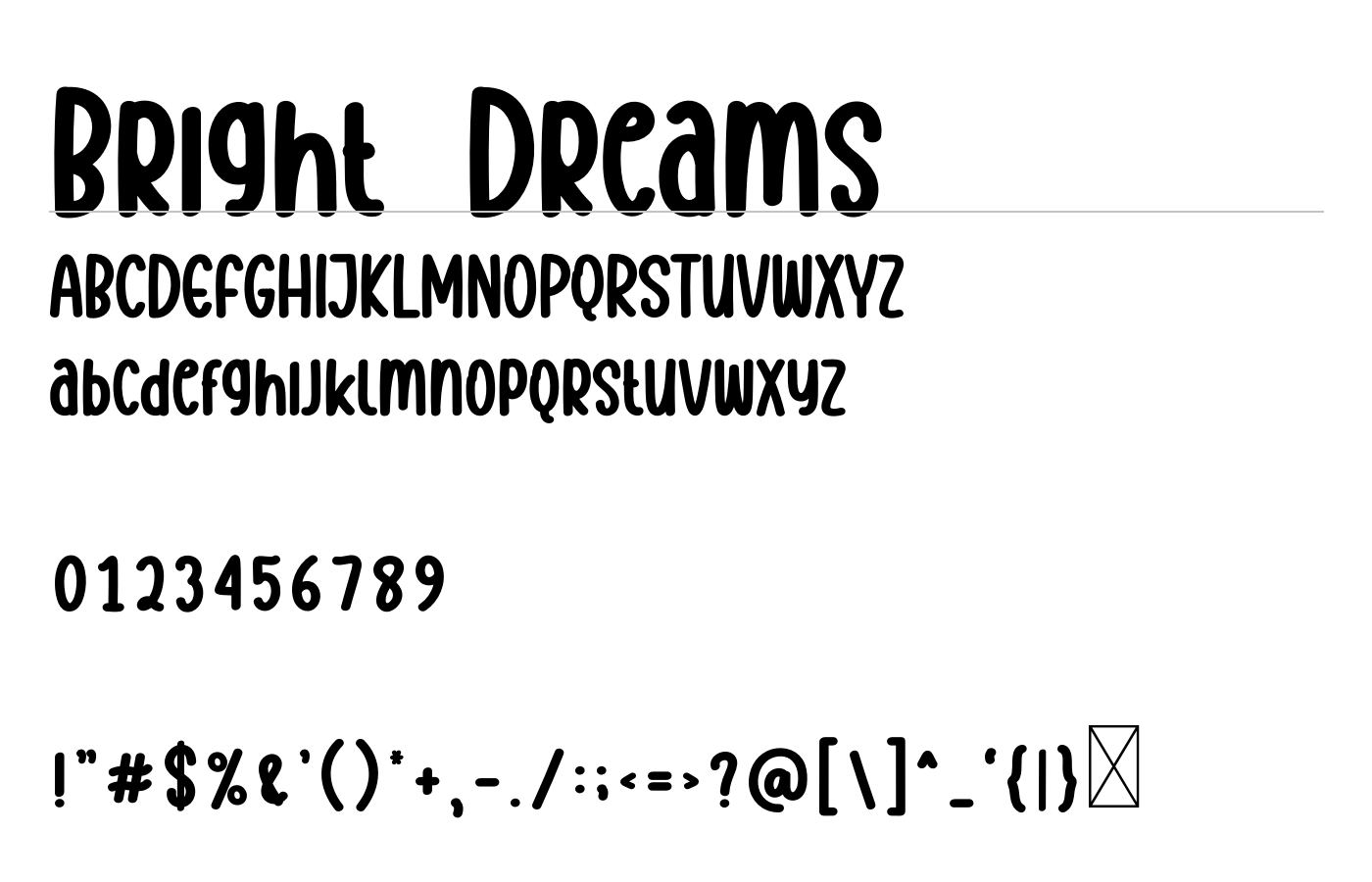
Bright Dreams Font is a playful and friendly sans serif typeface with a casual, hand-drawn feel. Its rounded, slightly irregular letterforms create an approachable and fun vibe, making it ideal for children's books, informal branding, and creative projects that want to convey warmth and cheerfulness. The font’s lively personality and clear legibility also make it a great choice for headlines and eye-catching displays.
Bright Dreams Font
About Bright Dreams Font